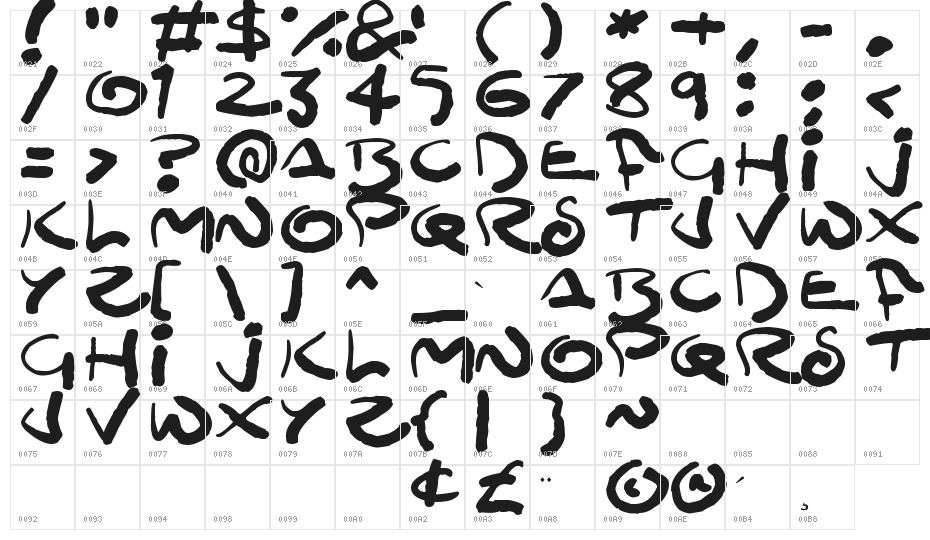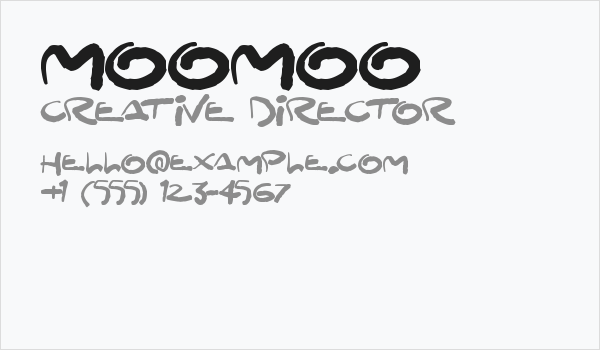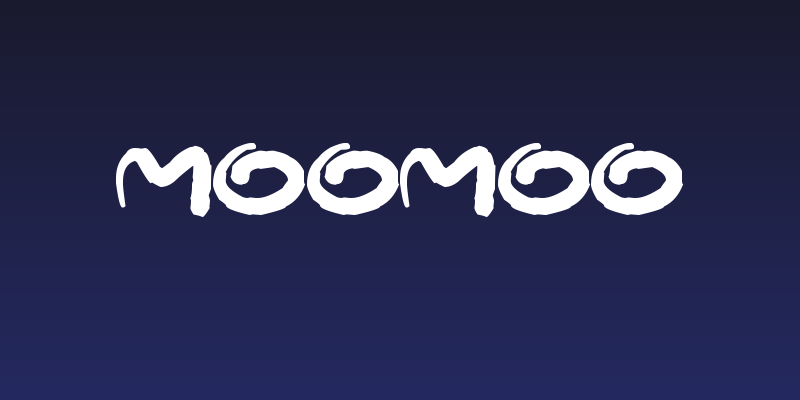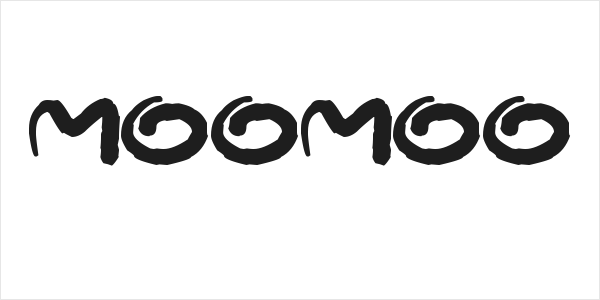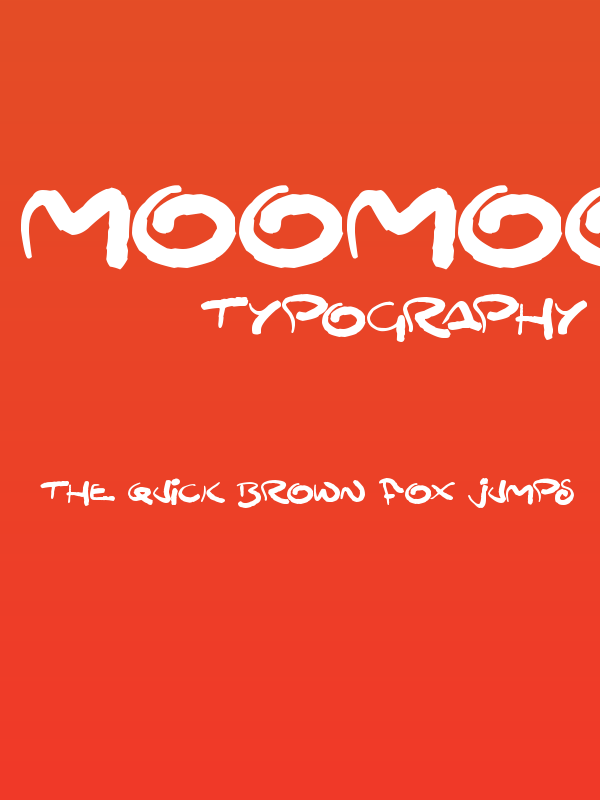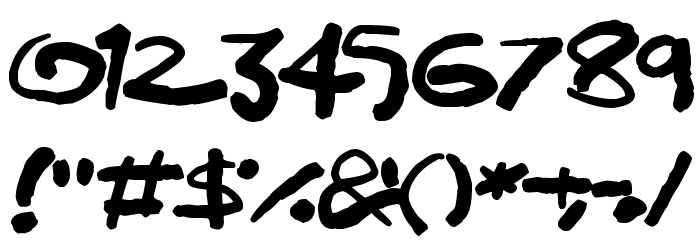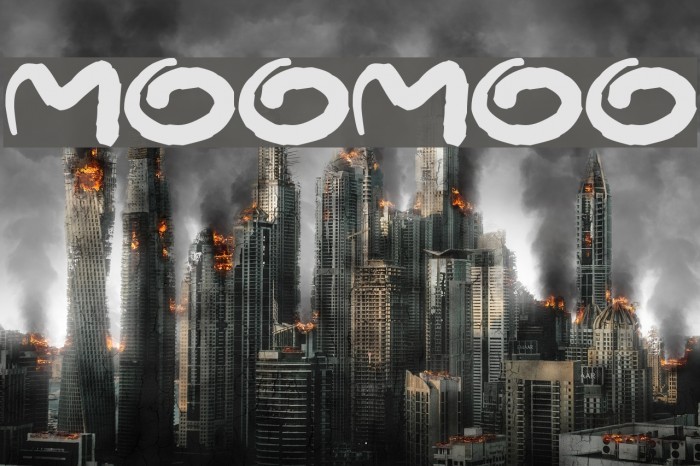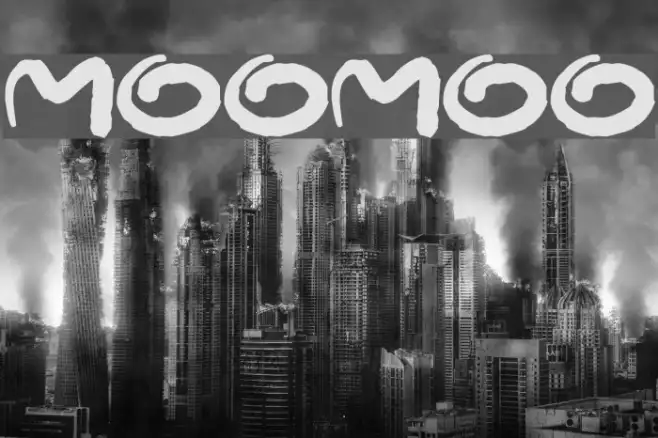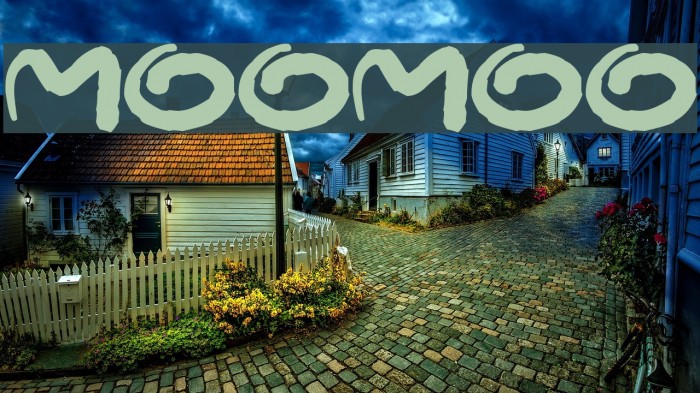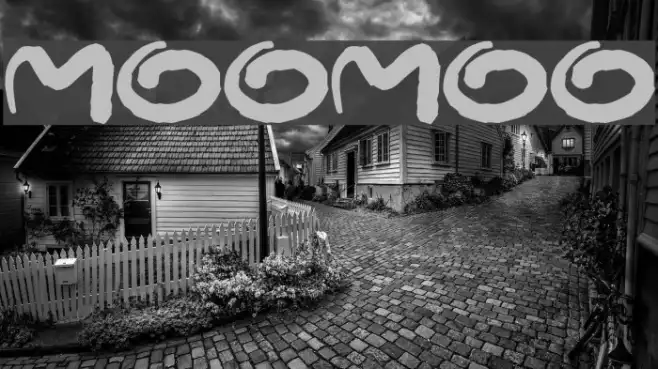
MooMoo Font
MooMoo Description
This font exhibits a bold and expressive handwritten style, characterized by its thick strokes and dynamic, flowing forms. The letters have a playful and artistic quality, with varying stroke widths that create a sense of movement and energy. The uppercase and lowercase letters maintain a consistent style, while the numbers and special characters complement the overall aesthetic. The font's unique appearance makes it suitable for creative and informal applications, adding a personal touch to any design.
| Proposed Projects | Ideal for artistic projects, branding, posters, and creative invitations. |